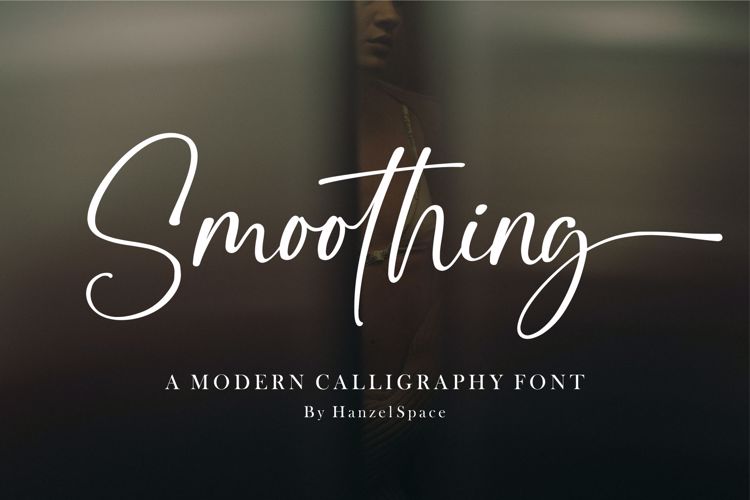
Smoothing Font
About Smoothing Font
Smoothing – Modern Calligraphy Font
Smoothing is a stylish modern calligraphic font in an original handwriting style. It’s perfect for branding,
wedding invitations and cards, and maybe for red wine labels.
Smoothing includes a full set of beautiful upper and lower case letters, numbers, a wide variety of
punctuation marks and 46 ligatures. All lowercase letters include initial and final strokes,
giving a realistic handwritten style.
We design this font in such a way that it is suitable when used for design projects so that it looks very attractive. And you can also use this font for logos, branding, brochures, names on product packaging and so on.
Features:
– Full Set of standard alphabet and punctuation
– Extra set of ending swashed lowercase
– Handwritten ligatures
– Multilingual Characters (ÁÂÄÀÅÃÆÇÐÉÊËÈÍÎÏÌÑÓÔÖÒØÕÚÛÜÙẂŴẄẀÝŶŸỲ áâäàåãæçðéêëèíîïìñóôöòøõœúûüùẃŵẅẁýŷÿỳ€£¥)